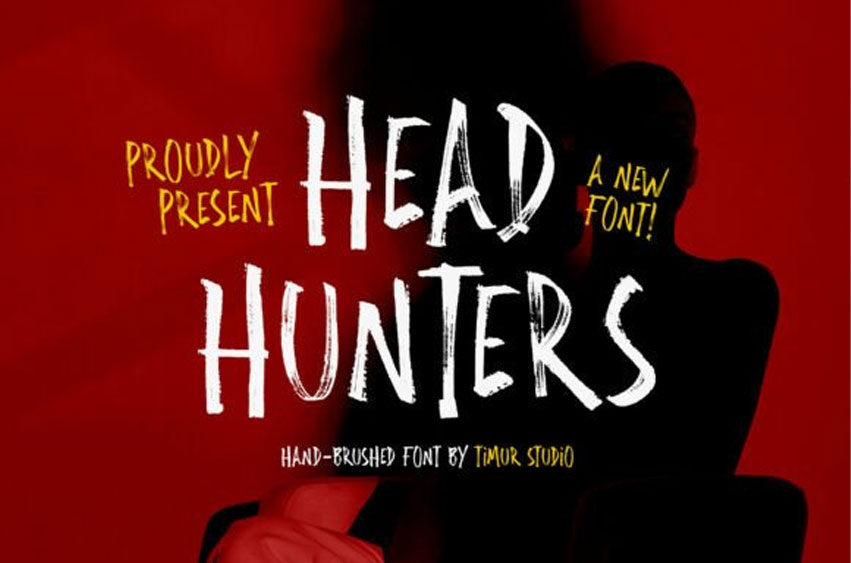
Head Hunters Font
Head Hunters Font is a bold, hand-brushed font with a raw, rebellious spirit. Its uneven strokes and edgy texture capture the energy of street art and guerrilla design. Each character feels urgent and spontaneous, as if it were painted with a loaded brush in one confident motion. With high contrast and unpredictable angles, this font adds drama and intensity to any visual statement. Ideal for music posters, action-themed branding, movie titles, or urban fashion, Head Hunters doesn’t whisper—it shouts. Its distressed finish and aggressive personality make it a perfect choice for projects that demand attention and attitude.
Type: Display Font
Designed for headlines, titles, and attention-grabbing text—not body copy.
Style: Hand-Brushed / Brush Script
It mimics bold brush strokes made with real paint or ink, giving it an expressive, textured, and artistic look.
Mood: Edgy, Grunge, Urban, Bold
With its uneven strokes, rough edges, and dramatic angles, it’s perfect for designs that need a rebellious or high-energy vibe.